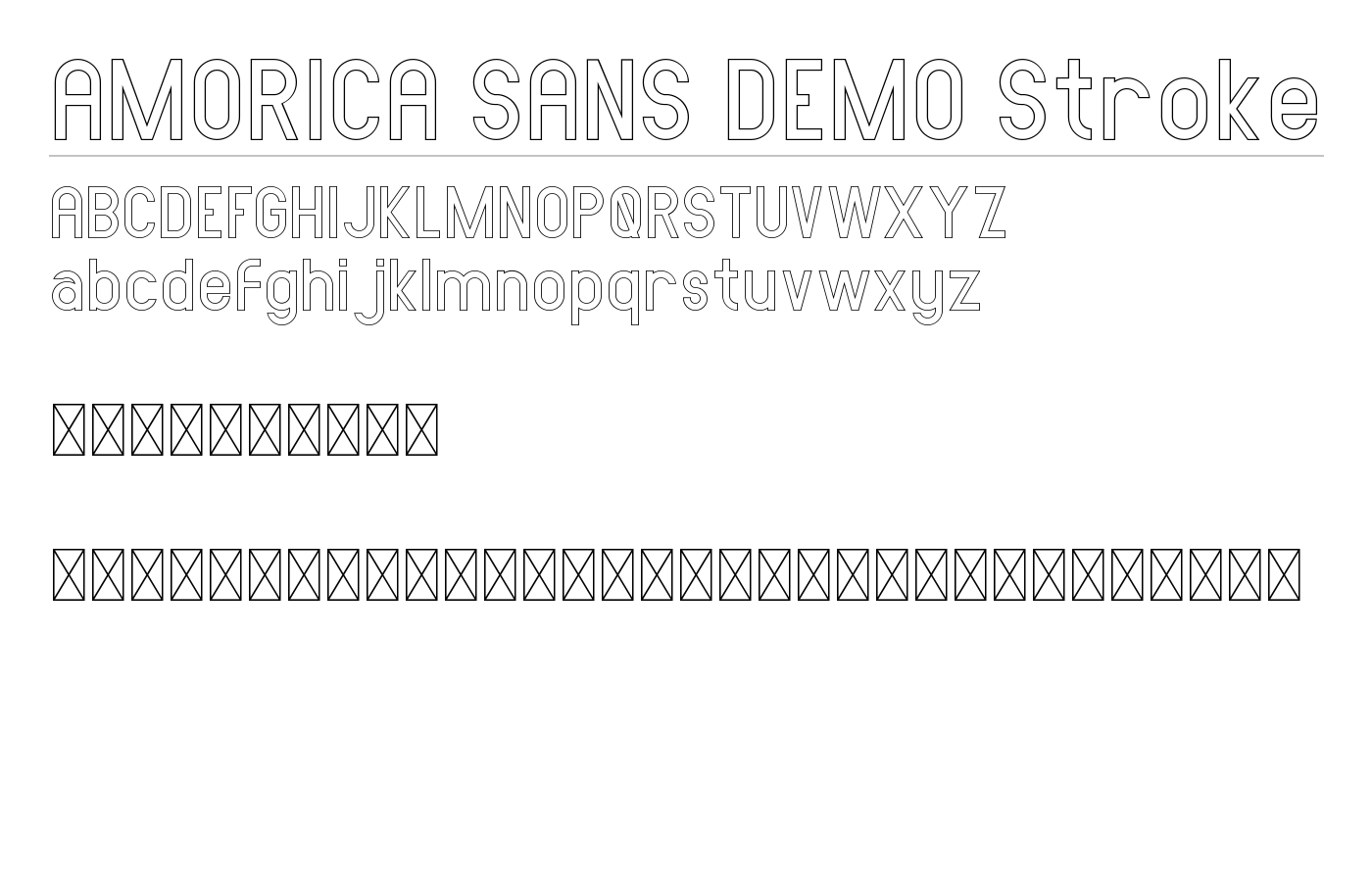
Amorica Sans Demo is a sleek, modern sans serif font characterized by its thin, evenly weighted strokes and clean, geometric letterforms. Its tall x-height and narrow width give it a contemporary, slightly technical feel, making it ideal for minimalist branding, headlines, and digital interfaces where clarity and style are key. This font works well for projects that need a refined yet approachable look, balancing sophistication with readability.
AMORICA SANS DEMO Font
About AMORICA SANS DEMO Font